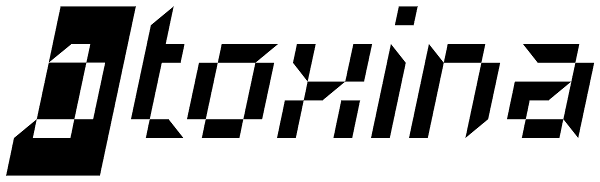
Btoxina
Btoxina is a free interpretation of the theme pixel font. With its technological feeling, it reflects the spirit of our age. By designing the font Filippo Salmina, the author, has been inspired by the signage used in starships. Btoxina is grid-based...